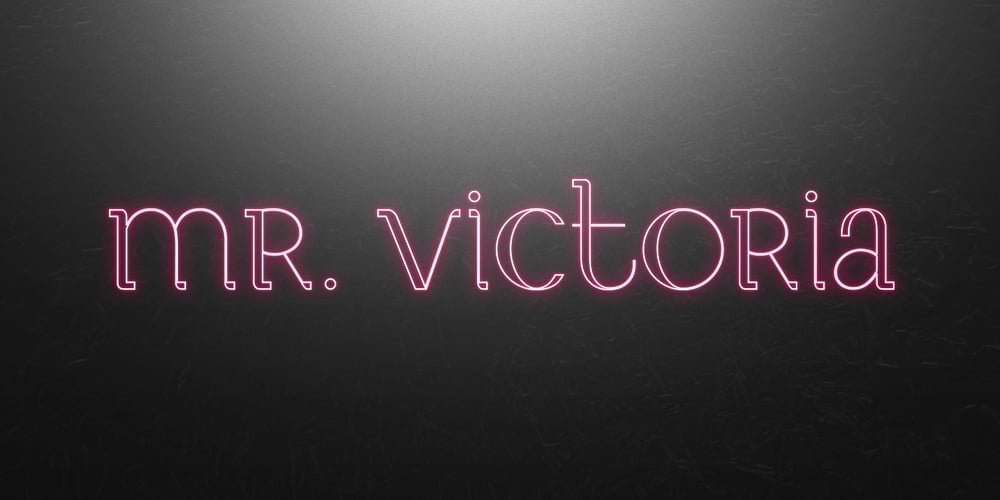
Mr. Victoria Font Family was designed by Gulce Baycik and published by Gulce Baycik. Mr. Victoria contains 1 styles and family package options. Almost all of my works are conceived out of my love of illustration and handmade crafts. In this case, Mr. Victoria’s hand-lettered quality reflects its sensitivity and warmth. Mr. Victoria contains West European diacritics & ligatures and is highly suitable for international environments & publications. As an elegant & charming display typeface, Mr. Victoria shines with color and is suitable for impressive invitations, classy headlines and logotypes. Mr. Victoria also contains a group of mustache icons for you to glamorize your designs! Enjoy it you shall, as much as I did creating it.